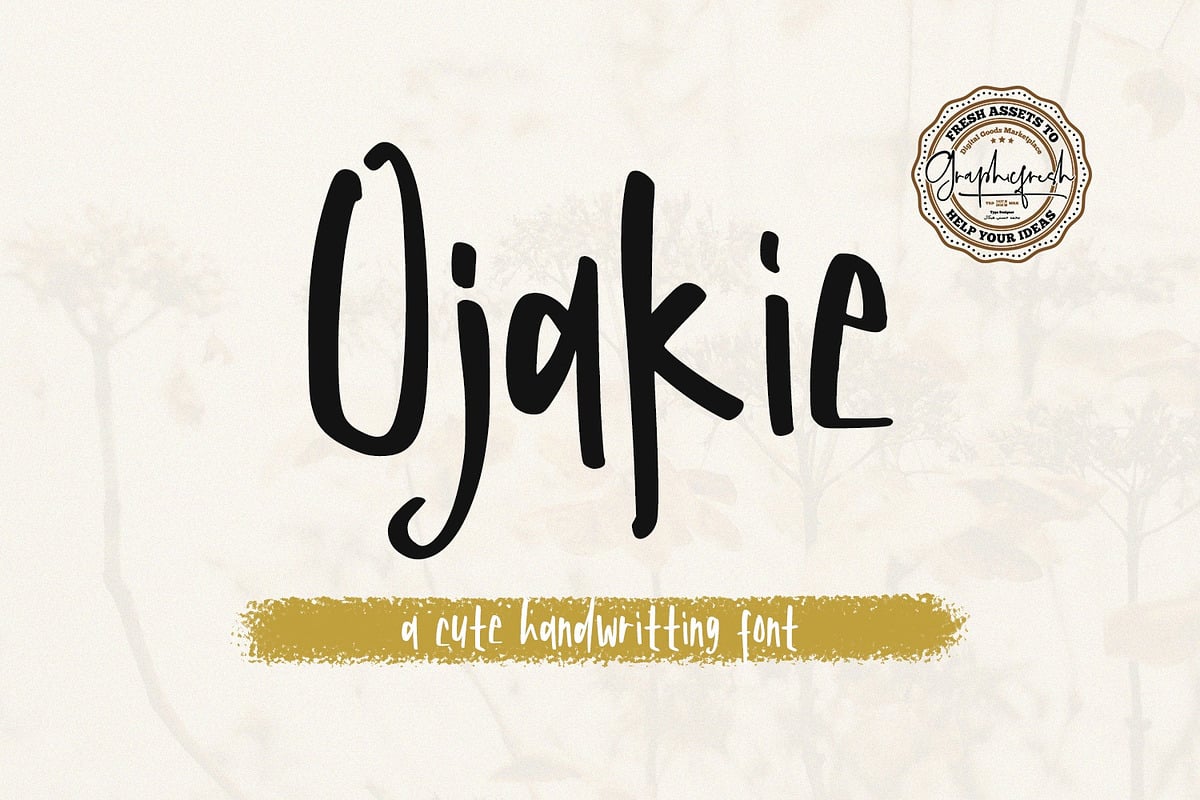
Ojakie - Cute Display Font
Ojakie is the cute, feminine display font that makes every design instantly charming and eye-catching.
Introducing Ojakie — an elegant handwriting-style display typeface with a playful, feminine personality. Whether you're designing for a boutique brand, a wedding invitation, or a bold poster, Ojakie brings warmth and character to any project.
This typeface is perfectly suited for:
- Branding and logotypes
- Wedding invitations and stationery
- Magazines and editorial layouts
- Mugs, T-shirts, and merchandise
- Business cards and letterheads
- Quotes, signs, and posters
Font features:
- Uppercase & lowercase characters
- Numerals & punctuation
- Ligatures
- International language support